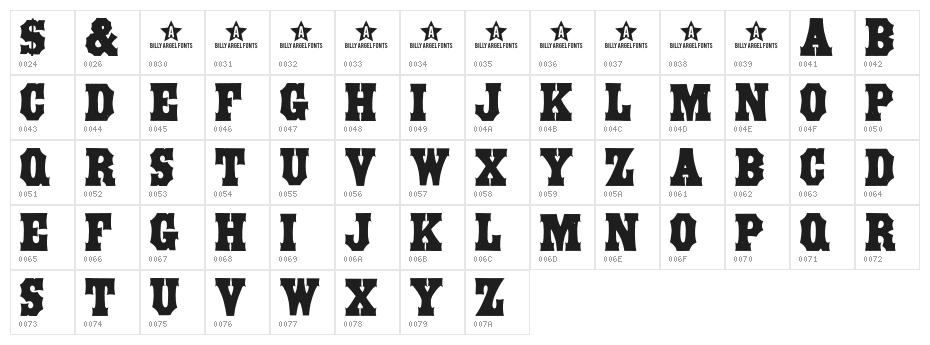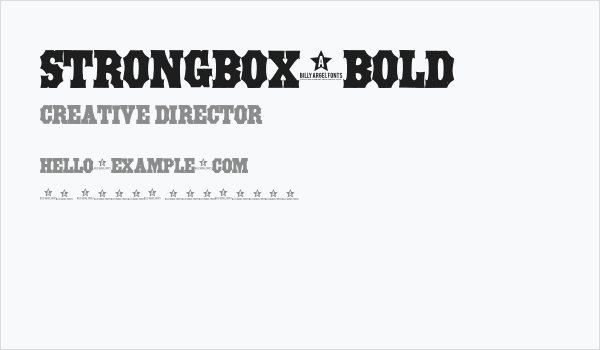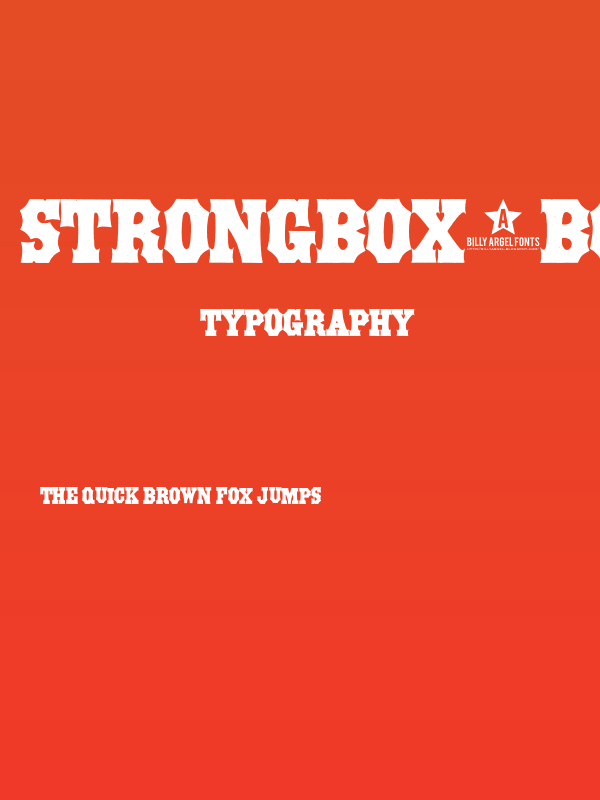
STRONGBOX-Bold Font
STRONGBOX-Bold Description
This font features a bold and impactful design with a strong, sturdy appearance. The characters are heavily weighted, with thick strokes and a blocky structure that conveys a sense of strength and stability. The design includes sharp angles and a slightly condensed form, giving it a compact yet powerful look. The uppercase letters are particularly dominant, making it suitable for attention-grabbing headlines or titles. The font's style is reminiscent of industrial or mechanical themes, with a touch of vintage flair. The special characters maintain the same boldness and are designed to integrate seamlessly with the overall aesthetic.
| Overall Style | Vintage, Industrial |
| Proposed Projects | Ideal for posters, logos, branding materials, and any project requiring a strong visual impact. |